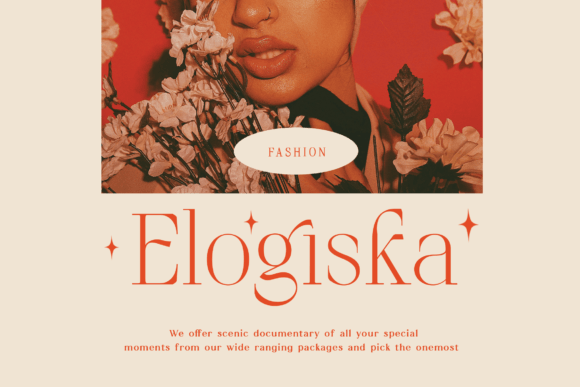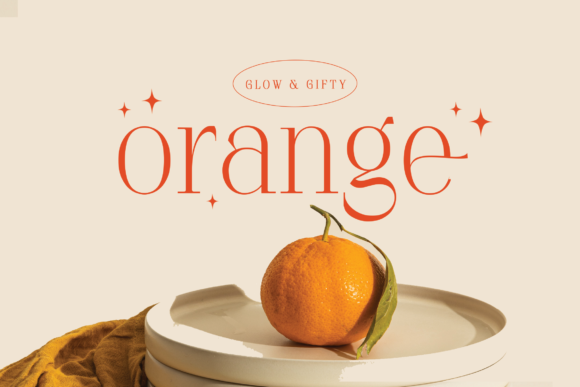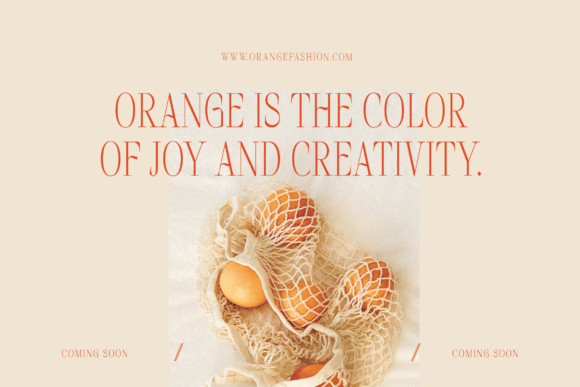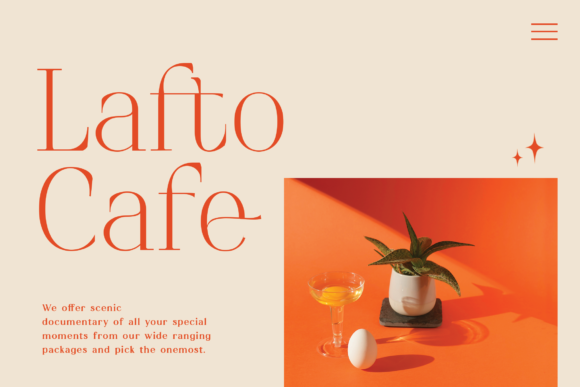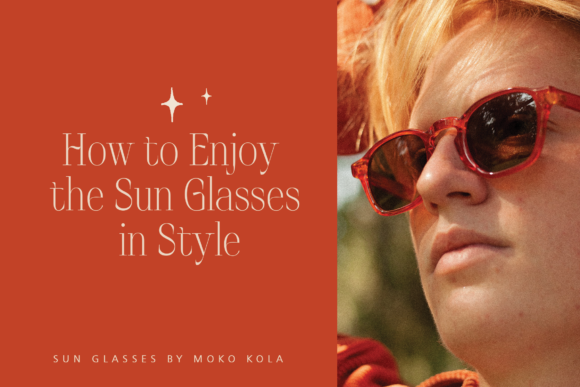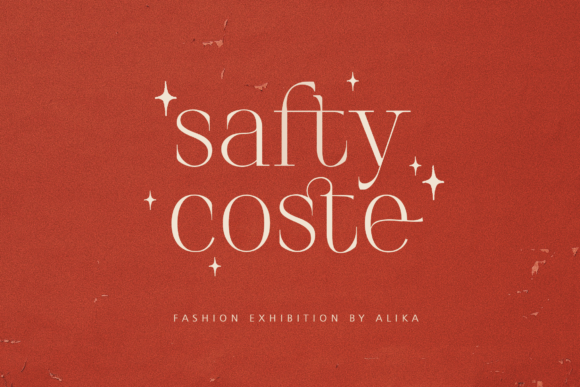
Introducing Glow and Gifty Font: Elevate Your Design with Delicate Serif Elegance
In the world of typography, the right font can make all the difference in elevating your design from ordinary to extraordinary. For designers and crafters seeking a delicate and slim serif font that exudes elegance and sophistication, look no further than Glow and Gifty Font. This versatile font is perfectly suited for a wide range of applications, including book texts, documentation, business reports, business correspondence, magazines, newspapers, posters, advertisements, multimedia, and corporate design.
The Characteristics of Glow and Gifty Font
Glow and Gifty Font boasts a unique blend of delicacy and slimness, making it an ideal choice for designs that require a touch of refinement. Its serif characteristics add a level of sophistication and classic appeal, while its slender lines ensure that your text remains clear and readable, even at smaller sizes.
Why Choose Glow and Gifty Font?
There are several reasons why Glow and Gifty Font stands out from the crowd:
- Versatility: Whether you’re working on a book, magazine, or corporate report, Glow and Gifty Font adapts seamlessly to any design requirement.
- Elegance: Its delicate and slim serif design adds a touch of elegance to any project, making it perfect for designs that require a sophisticated look.
- Readability: Despite its slender lines, Glow and Gifty Font maintains excellent readability, ensuring that your text is easy to read and understand.
- Professionalism: The font’s classic appeal and refined aesthetic make it an excellent choice for business and professional designs.
Applications of Glow and Gifty Font
The versatility of Glow and Gifty Font makes it suitable for a wide range of applications, including:
- Book Texts: Add a touch of elegance to your novel, memoir, or textbook with Glow and Gifty Font.
- Documentation: Create professional-looking documents, such as reports, proposals, and guides, with this versatile font.
- Business Reports and Correspondence: Elevate your business communications with a sophisticated and refined font.
- Magazines and Newspapers: Use Glow and Gifty Font to add a touch of class to your publication’s body text or headlines.
- Posters and Advertisements: Create eye-catching posters and ads with Glow and Gifty Font’s elegant and slim design.
- Multimedia and Corporate Design: Use this font to create a consistent brand identity across various multimedia platforms.
Tips for Using Glow and Gifty Font
To get the most out of Glow and Gifty Font, consider the following tips:
- Pair with bold fonts: Combine Glow and Gifty Font with a bold font to create visual interest and hierarchy in your design.
- Experiment with sizes: Glow and Gifty Font’s delicate design works well at various sizes, from small body text to large headlines.
- Use for emphasis: Use Glow and Gifty Font to add emphasis to specific text elements, such as quotes, testimonials, or captions.
Glow and Gifty Font is a versatile and elegant serif font that can elevate your designs to new heights. Its delicate and slim design makes it perfect for a wide range of applications, from book texts to corporate design. With its excellent readability, classic appeal, and refined aesthetic, Glow and Gifty Font is an excellent addition to any designer’s toolkit.